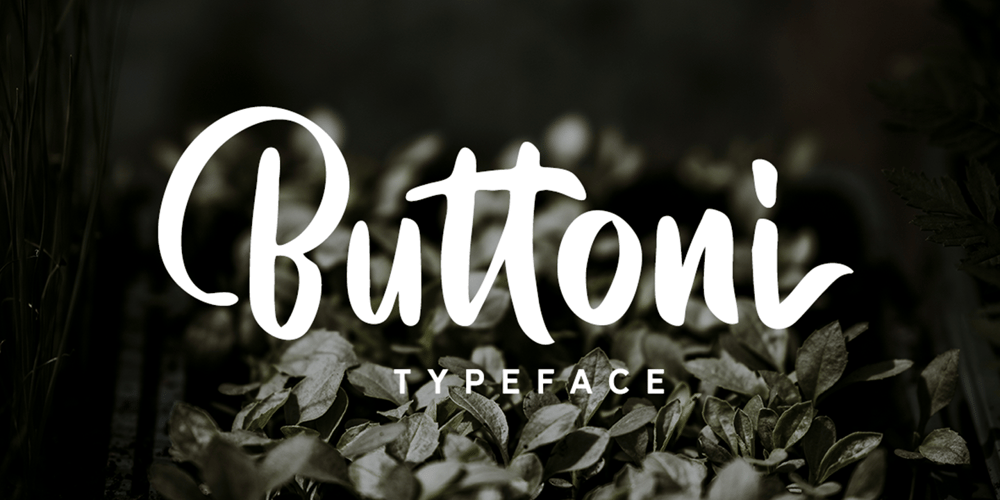
Buttoni Font Family was designed by Hendry Juanda and published by Letterhend. Buttoni contains 1 styles and family package options. Buttoni is a playful font that you can use for many things. Perfect for quote or anything you want. This font also includes numbers, symbols, and multi-lingual support. Also comes with ligatures and alternates.